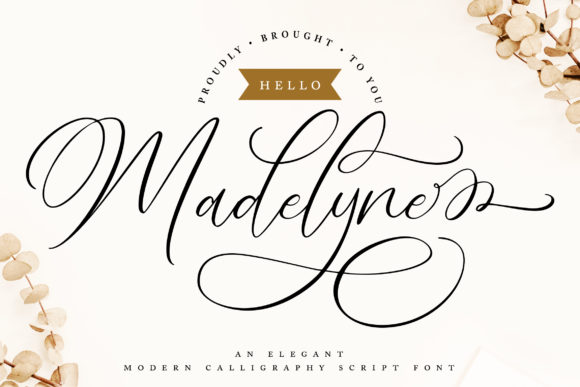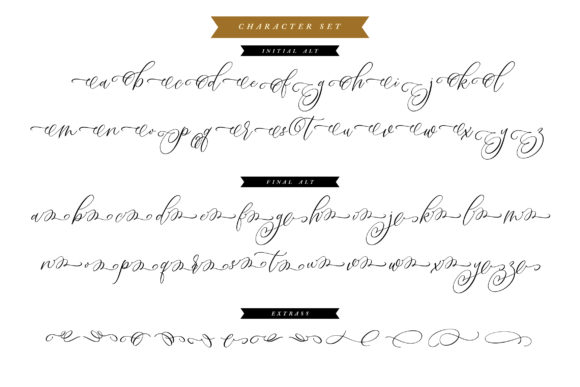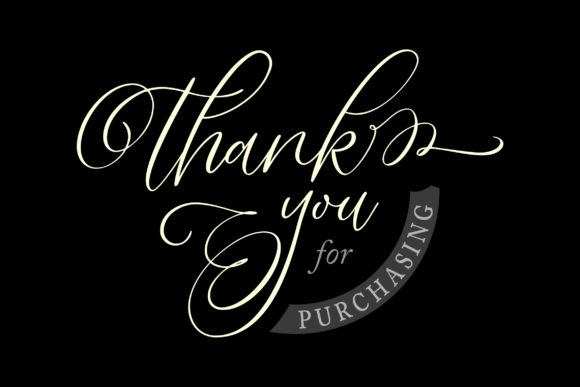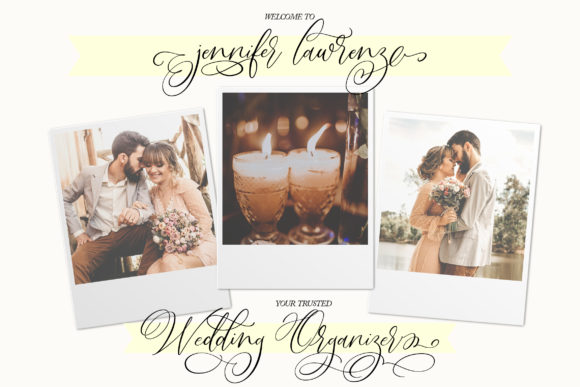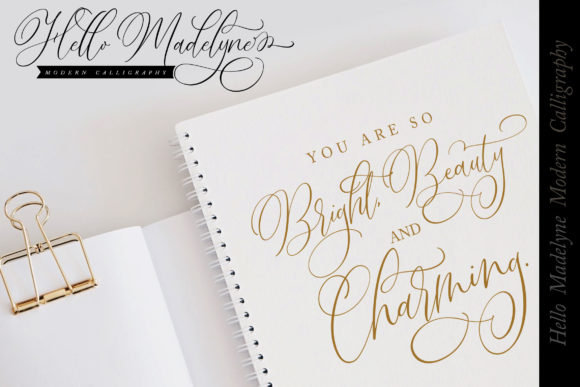
About Hello Madelyne Font
Introducing Hello Madelyne: The Romantic and Beautiful Handwritten Font
Step into a world of romance and beauty with Hello Madelyne, a font that exudes charm and elegance in its handwritten style. Adorable and captivating, Hello Madelyne is the perfect choice for personalized designs, such as invitations, thank you cards, quotes, greeting cards, logos, business cards, and so much more. Embrace the allure of Hello Madelyne as you bring a touch of romance to all your creative projects.
Hello Madelyne’s romantic and beautiful appeal brings a sense of enchantment and grace to your designs. Its handwritten letterforms flow with a seamless beauty, making your text exude a touch of elegance and warmth.
As a font that looks adorable on personalized designs, Hello Madelyne becomes your go-to choice for adding a personal touch to all your projects. Its captivating charm ensures that your designs stand out with a touch of sweetness and sentiment.
Embrace the beauty of Hello Madelyne as you embark on your creative journey. Let it be the font that enhances your work, creating a sense of romance and sophistication in every project.
As you explore the possibilities of Hello Madelyne, you’ll find it to be a font that transforms your designs with ease. Its romantic and beautiful handwritten beauty elevates your work, ensuring that your creations leave a lasting impression.
So, let Hello Madelyne be the font that adds a romantic touch to your designs. Embrace its adorable charm, and watch as your invitations, thank you cards, quotes, logos, and more come to life with a touch of elegance and sentiment. With Hello Madelyne as your go-to font, your designs will resonate with beauty and allure, captivating your audience and leaving a lasting impression. Embrace the romance of Hello Madelyne and create designs that are truly enchanting and unforgettable!